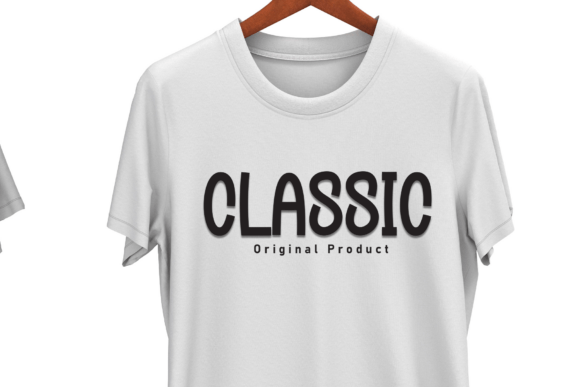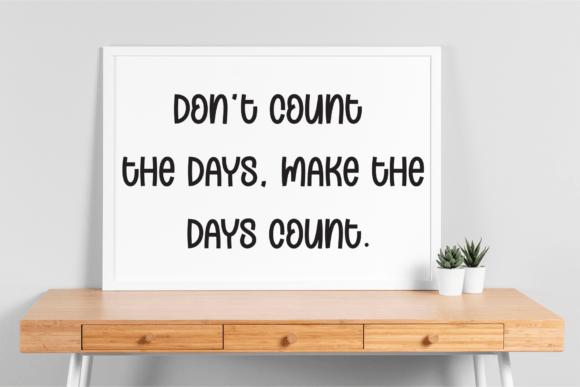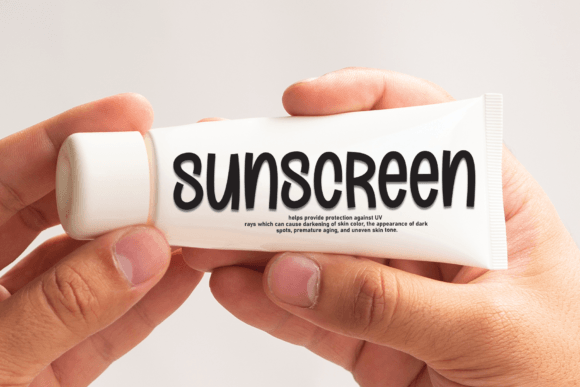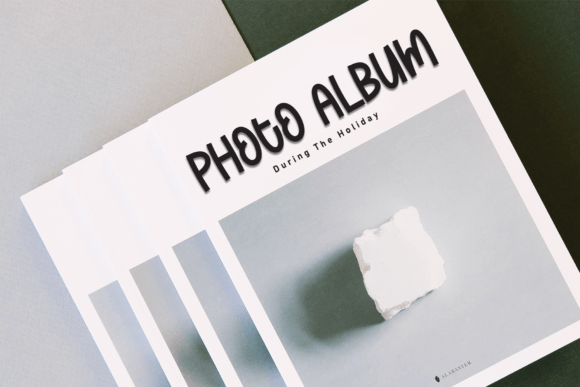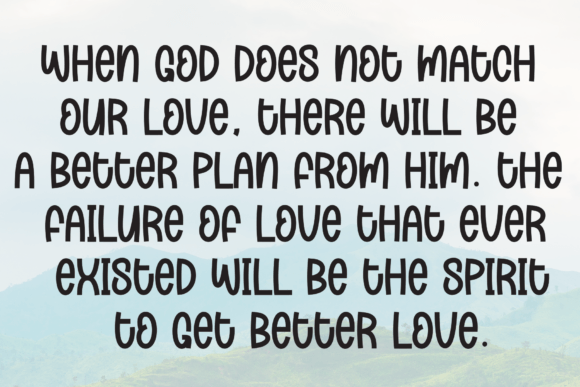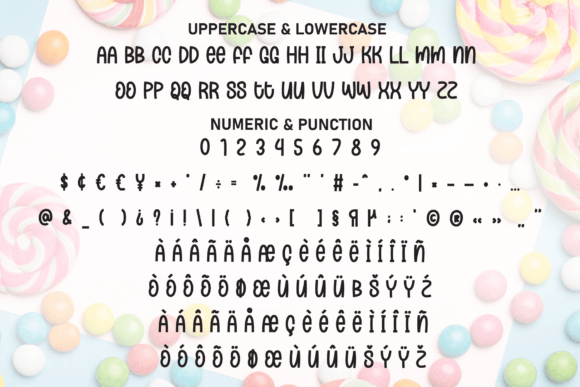
Candy Festival Font: The Sweetest Addition to Your Design Projects
Are you looking for a font that can add a touch of whimsy and fun to your design projects? Look no further than the Candy Festival font! This sweet and playful handwritten font is perfect for creating fun designs, invitations, and cheerful projects that are sure to bring a smile to people’s faces.
What is Candy Festival Font?
Candy Festival is a modern handwritten font that is designed to look like soft candy. Its smooth, curvy letters are reminiscent of colorful sweets and treats, making it the perfect choice for designs that require a playful and cheerful touch. The font is highly legible and versatile, making it suitable for a wide range of design projects, from invitations and greeting cards to posters and social media graphics.
Key Features of Candy Festival Font
- Playful and Whimsical Design: The Candy Festival font features a playful and whimsical design that is sure to add a touch of fun to your design projects.
- Smooth and Curvy Letters: The font’s smooth and curvy letters are designed to look like soft candy, making it perfect for creating sweet and cheerful designs.
- Highly Legible: The font is highly legible, making it easy to read and understand, even at small sizes.
- Versatile: The Candy Festival font is versatile and can be used for a wide range of design projects, from invitations and greeting cards to posters and social media graphics.
Uses of Candy Festival Font
The Candy Festival font is perfect for a wide range of design projects, including:
- Invitations: Use the Candy Festival font to create fun and playful invitations for parties, birthdays, and other celebrations.
- Greeting Cards: The font is perfect for creating cheerful greeting cards for special occasions, such as holidays and birthdays.
- Posters: Use the Candy Festival font to create eye-catching posters for events, promotions, and products.
- Social Media Graphics: The font is perfect for creating fun and engaging social media graphics, such as Facebook posts and Instagram stories.
- Crafting Projects: The Candy Festival font is also perfect for crafters who want to add a personal touch to their projects, such as scrapbooking, journaling, and card making.
Tips for Using Candy Festival Font
Here are some tips for using the Candy Festival font in your design projects:
- Pair it with Other Fonts: The Candy Festival font can be paired with other fonts to create a unique and interesting design.
- Use it in Combination with Images: The font looks great when used in combination with images, such as illustrations and photographs.
- Experiment with Colors: The Candy Festival font comes in a range of colors, so don’t be afraid to experiment and find the perfect color for your design.
- Use it to Add a Personal Touch: The font is perfect for adding a personal touch to your design projects, such as handmade cards and invitations.
The Candy Festival font is a sweet and playful handwritten font that is perfect for adding a touch of fun and whimsy to your design projects. Its smooth, curvy letters and highly legible design make it suitable for a wide range of design projects, from invitations and greeting cards to posters and social media graphics. Whether you’re a designer or a crafter, the Candy Festival font is sure to bring a smile to people’s faces and add a touch of happiness to your words!